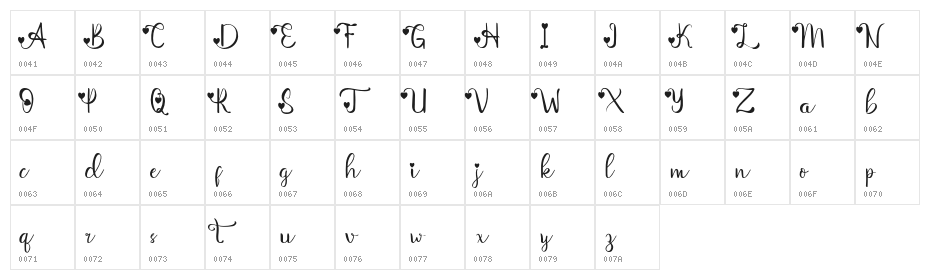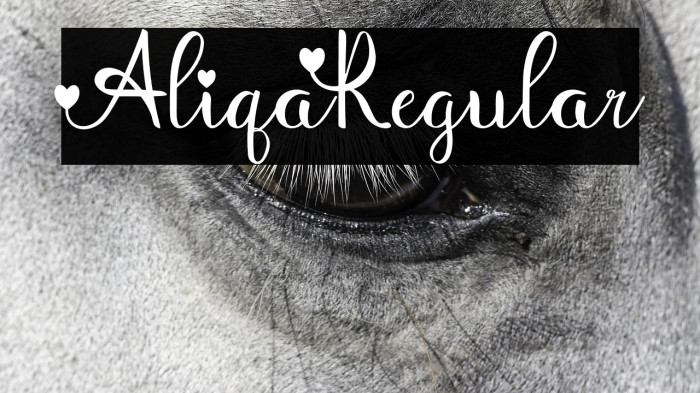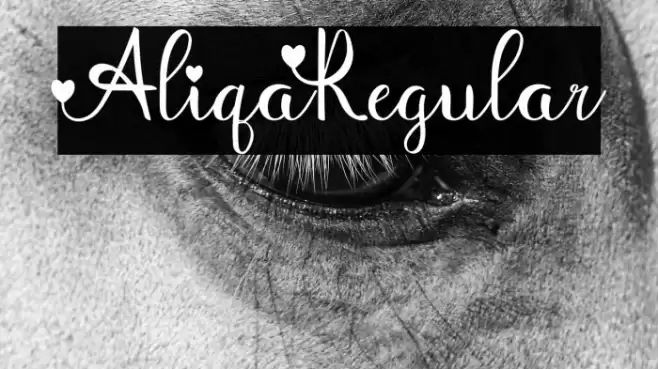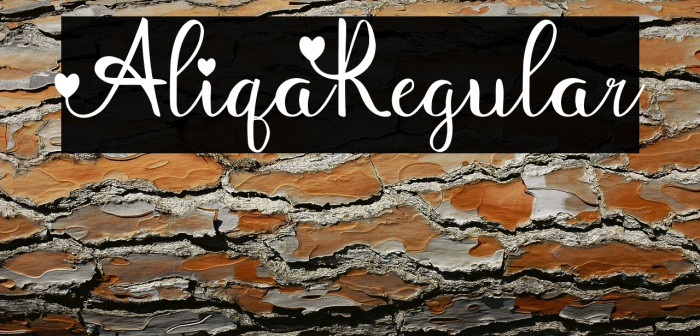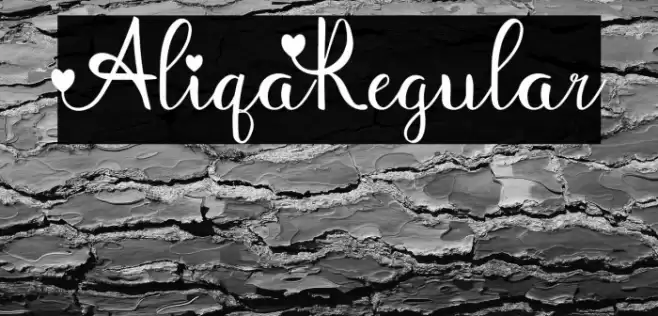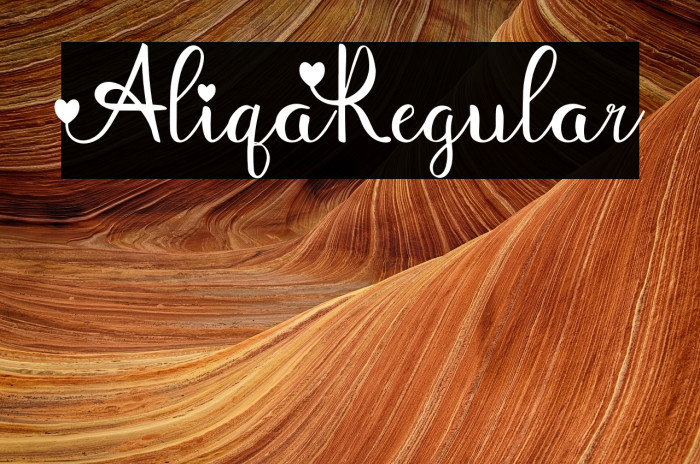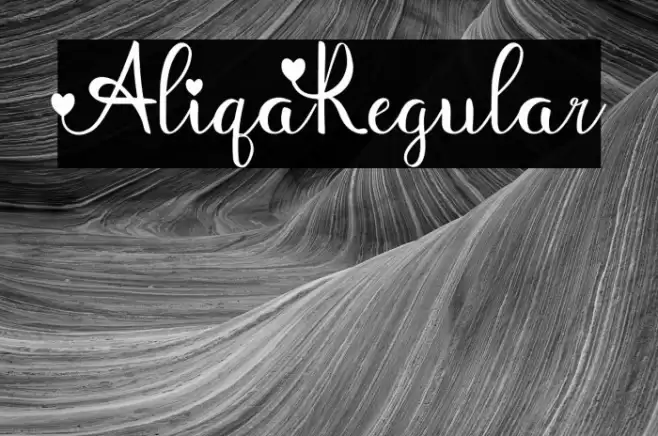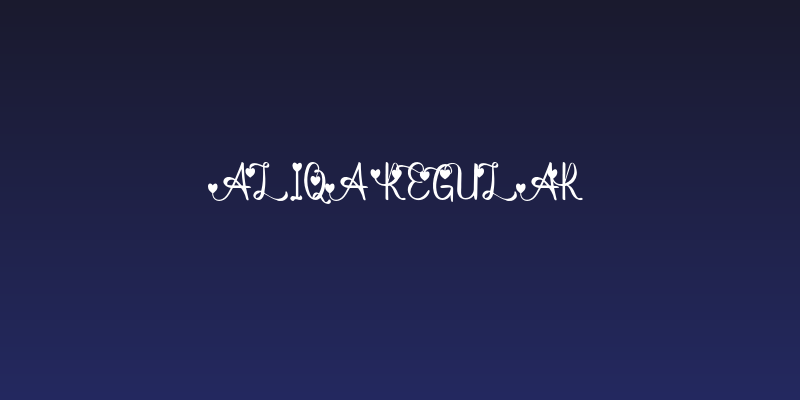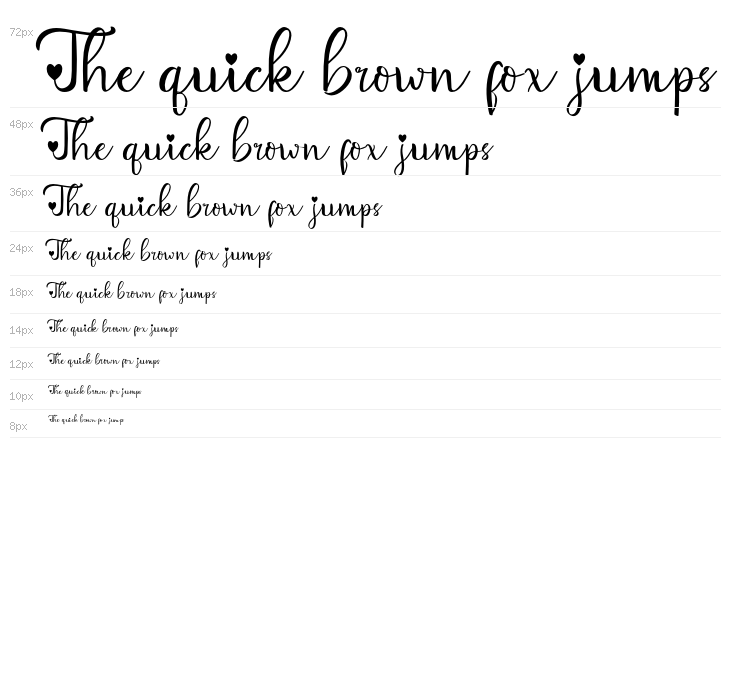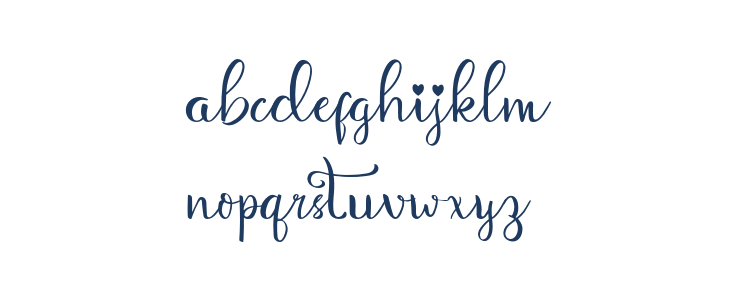
Aliqa-Regular Font
Aliqa-Regular Description
This font features a whimsical and playful design, characterized by heart-shaped embellishments integrated into the strokes of the letters. The uppercase letters are bold and decorative, with each character having a unique flair that adds to the overall charm. The lowercase letters maintain a cursive, handwritten style, offering a smooth and elegant flow. The combination of bold uppercase and delicate lowercase creates a striking contrast, making it ideal for creative and romantic projects. The font's unique style is perfect for adding a personal touch to invitations, greeting cards, and other decorative designs.
Use CaseHeadlines, Logos, Invitations
Proposed ProjectsIdeal for wedding invitations, greeting cards, romantic quotes, and decorative posters.